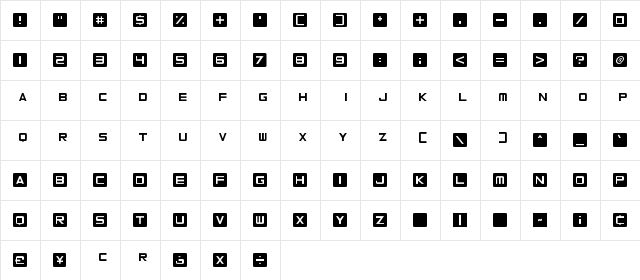
Curved Square Regular
| Designer | Darrell Flood |
Design Context for Curved Square Typeface
Curved Square takes a measured approach to typography — its balanced proportions and neutral character make it a reliable workhorse for both digital and print work.